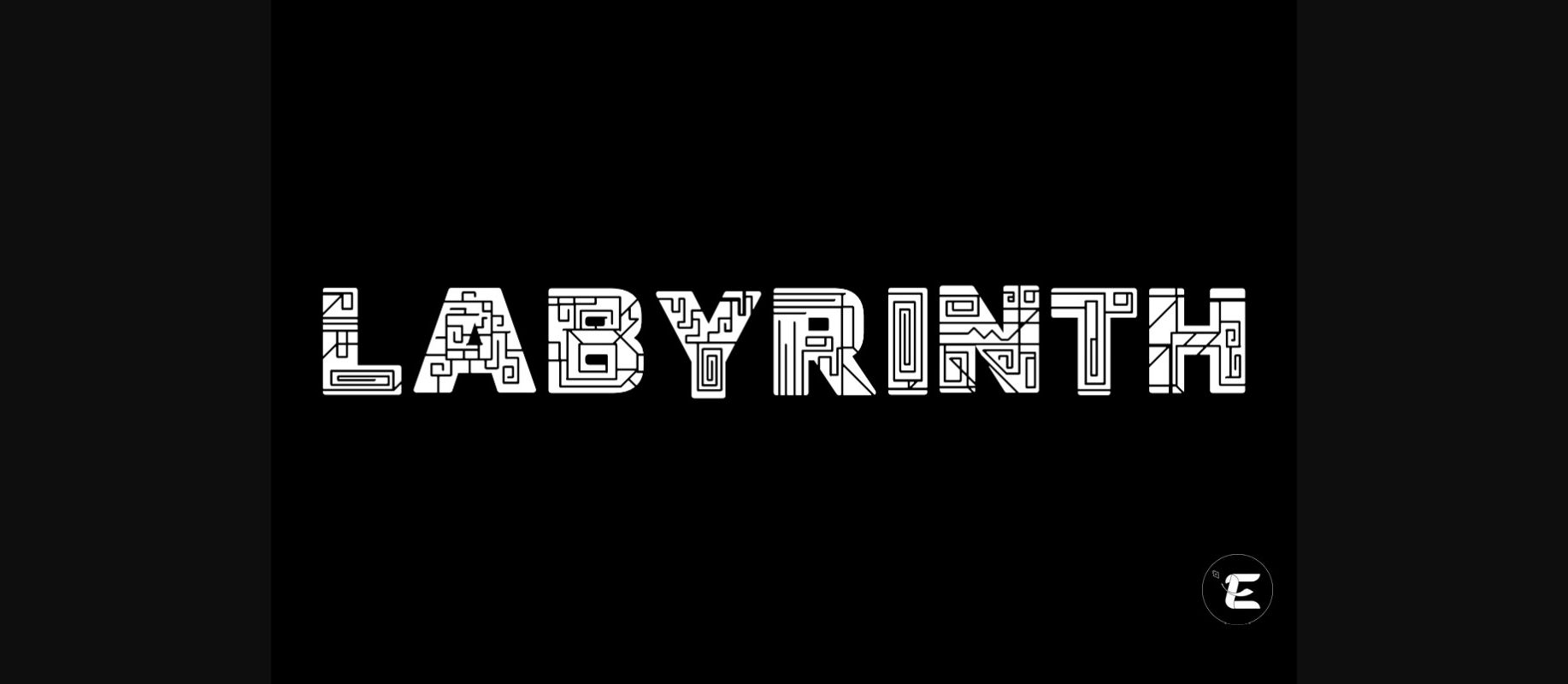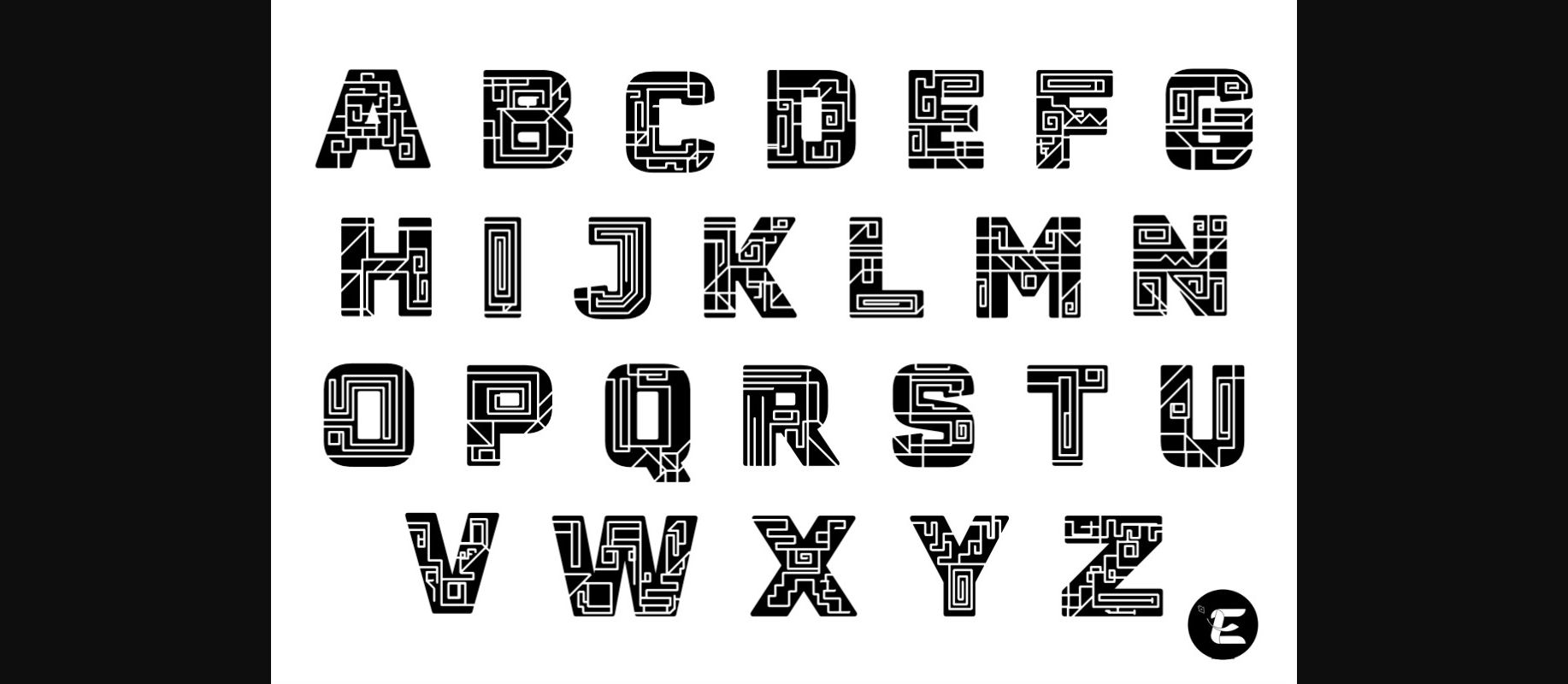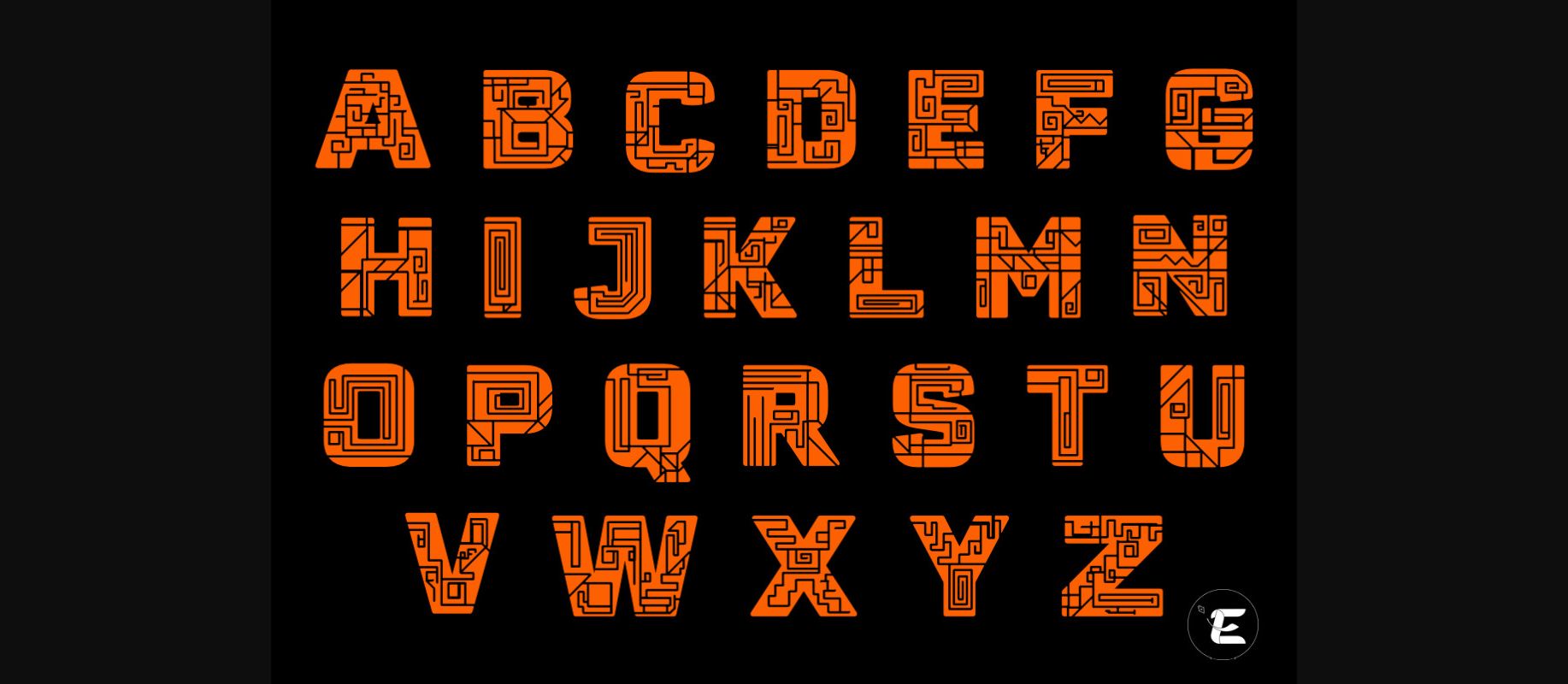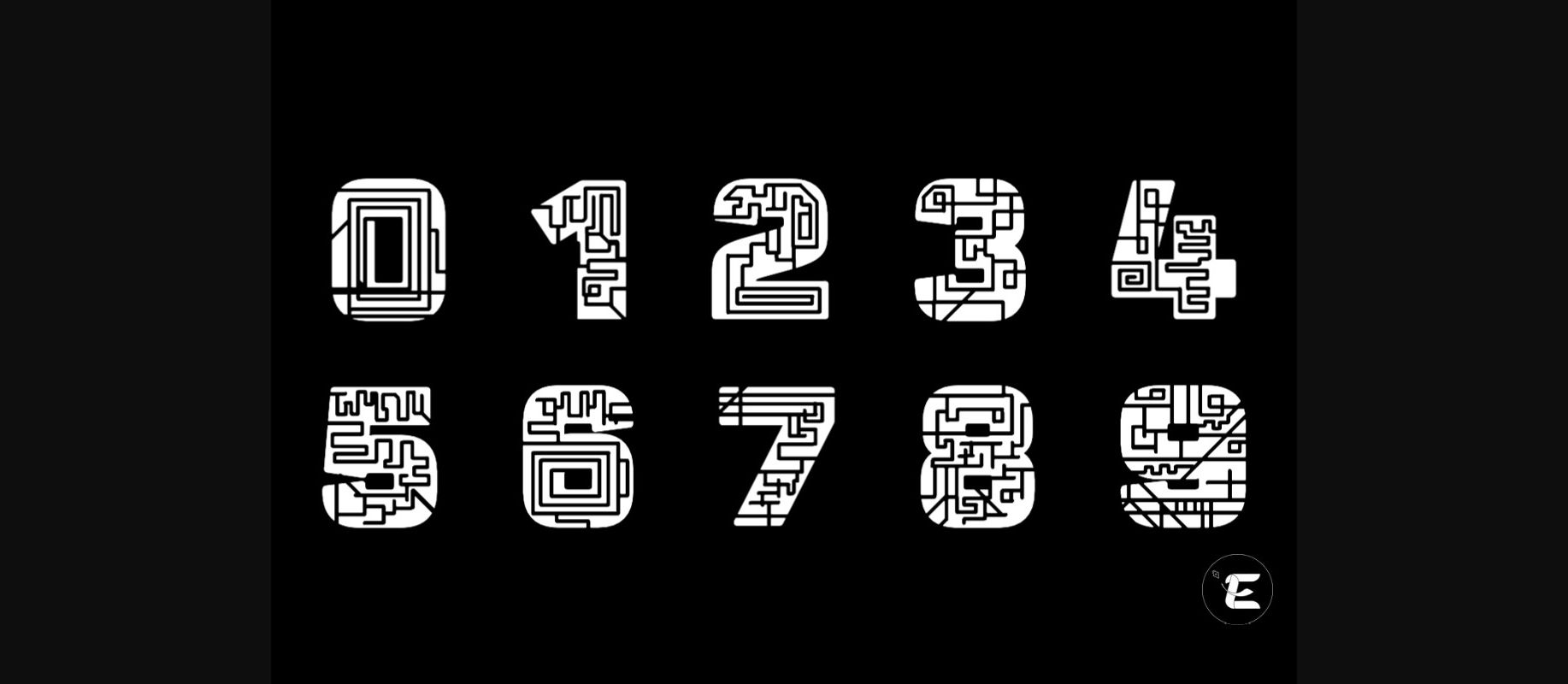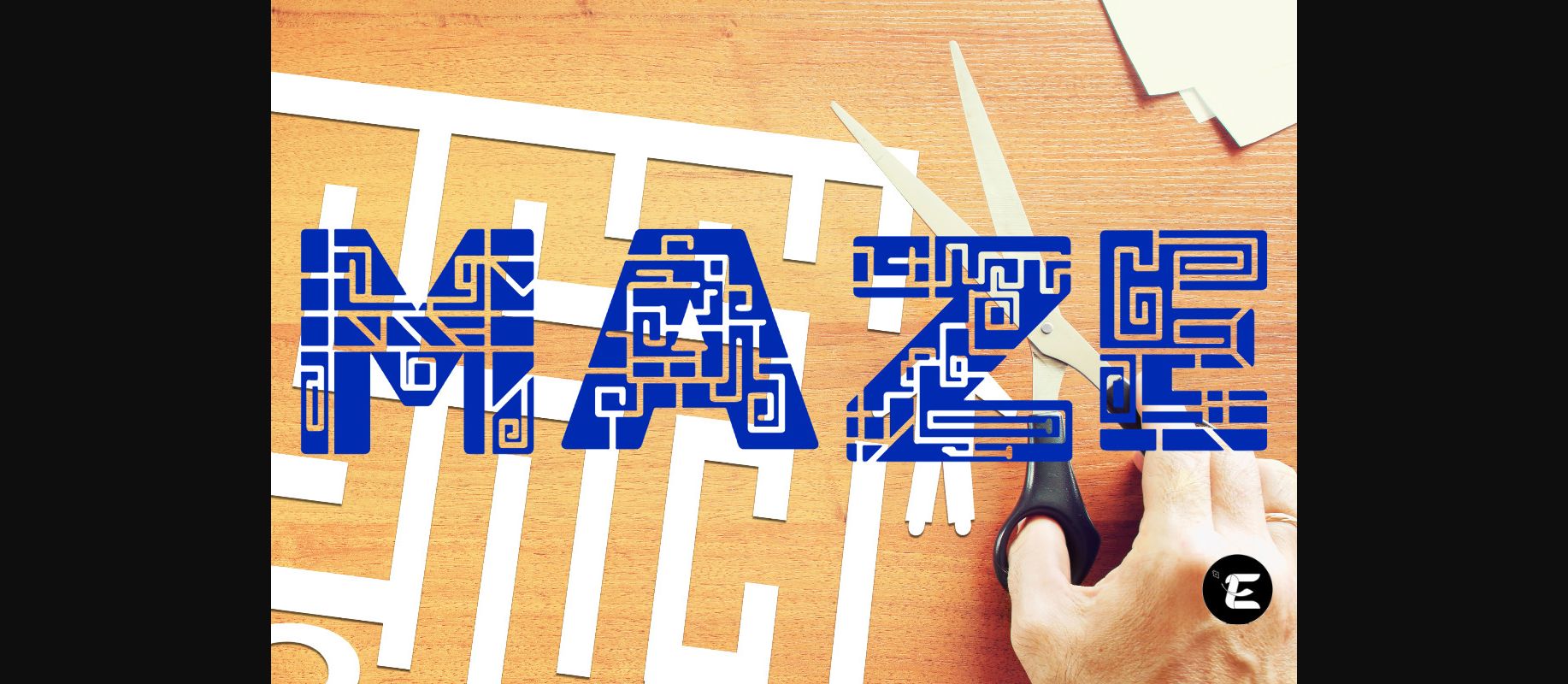
About Labyrinth Font
Find the way!
Labyrinth is a cool and playful decorative font. Whether you use it for crafts, digital design, or presentations, this font has the potential to become your favorite font for any occasion!